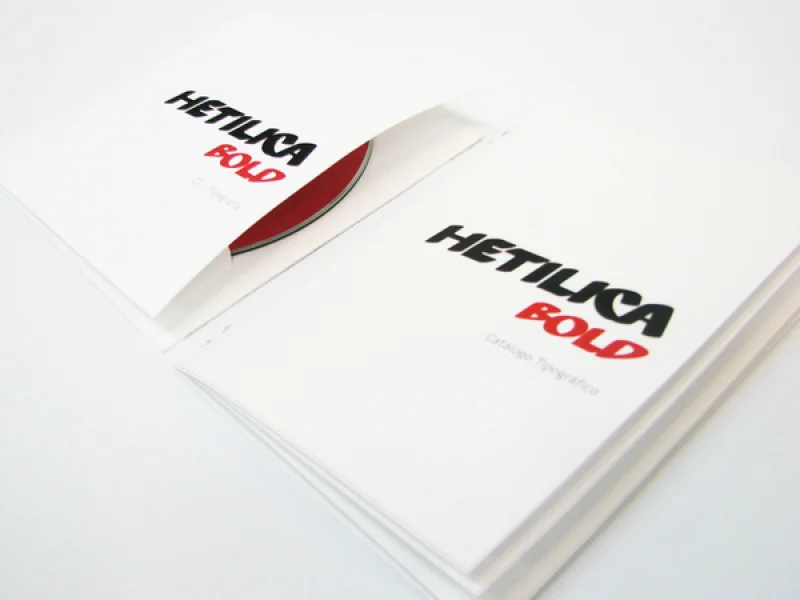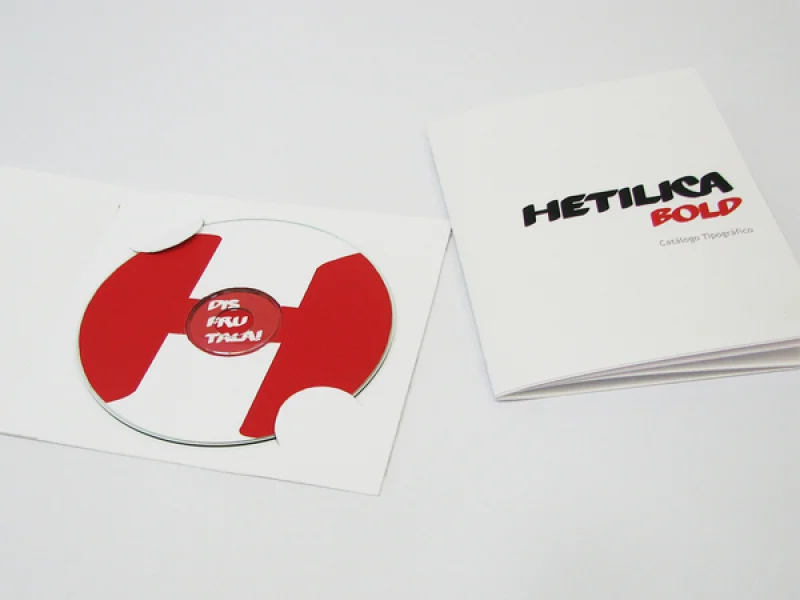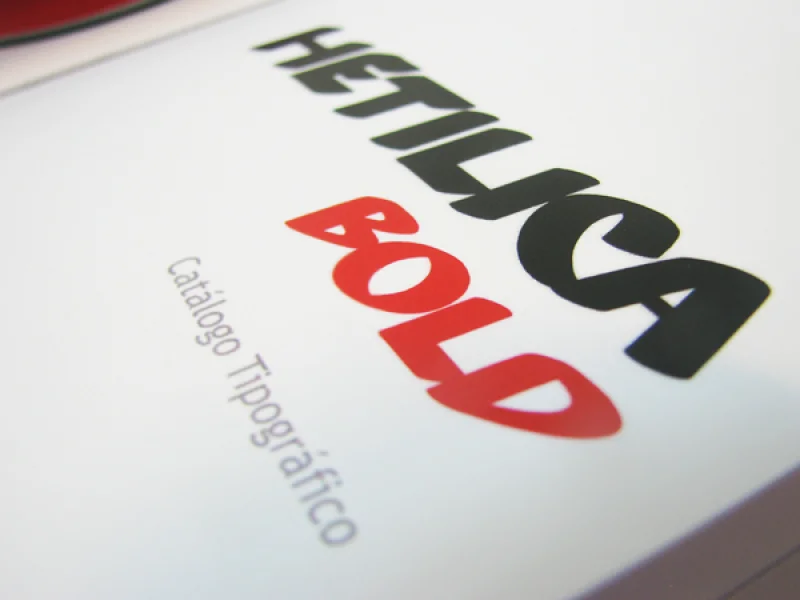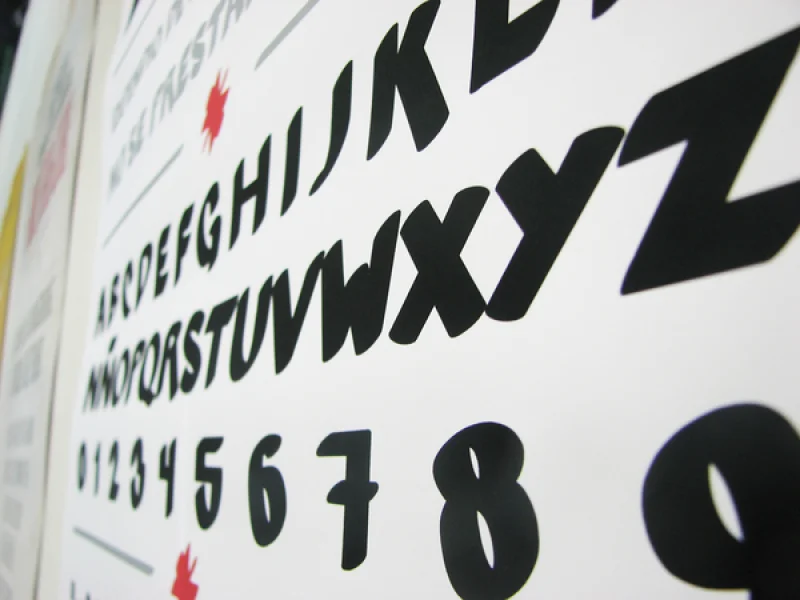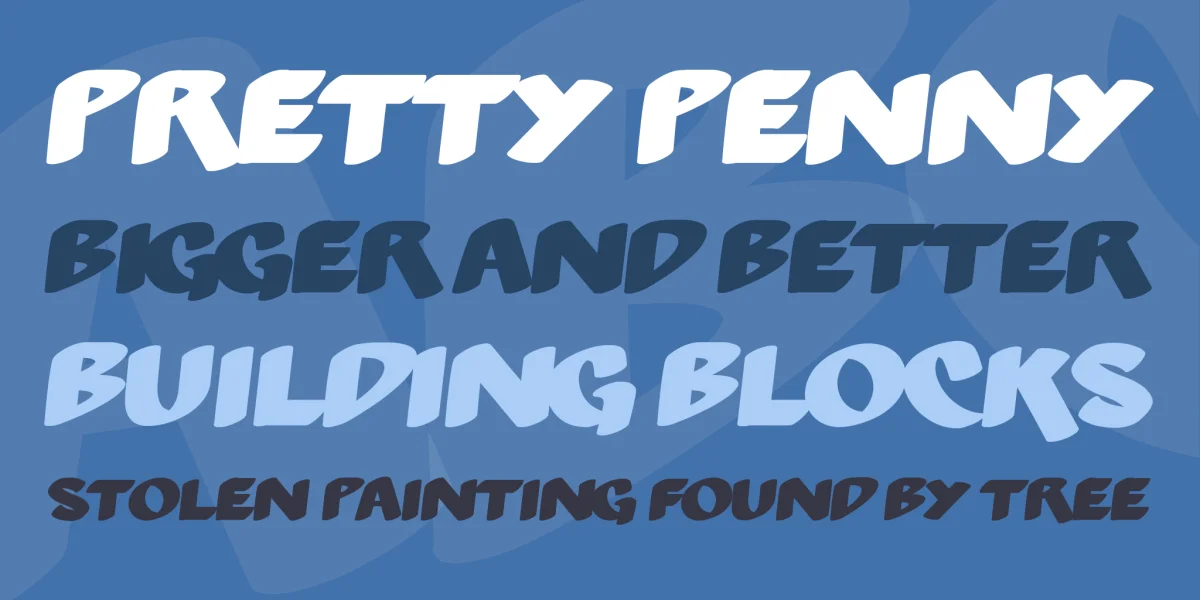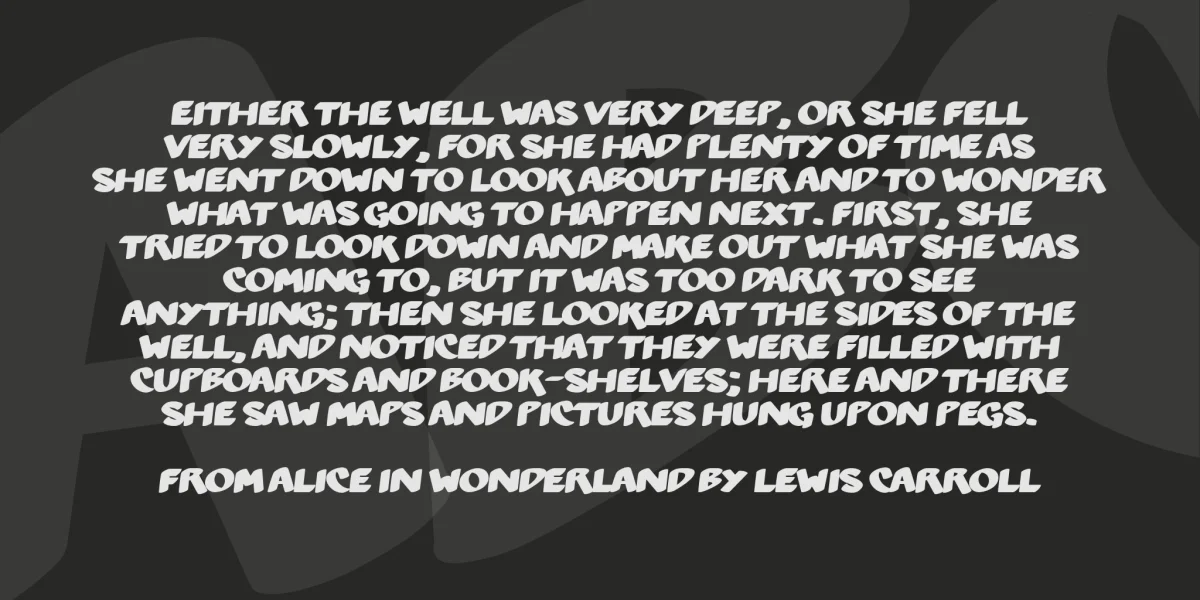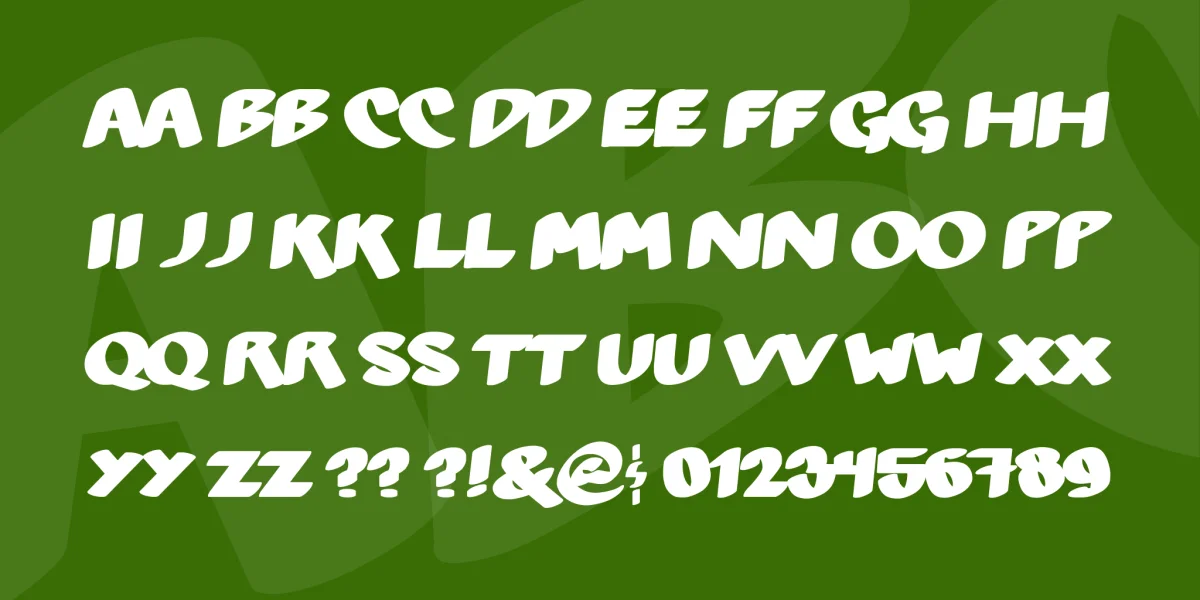
Hetilica Bold is a typeface developed as a final project for my 2009 workshop class in college.
It is based on the hand-written license signs used across some of the alcohol selling shops in the province of Cartagena, Chile; a small beach-side town of small population.
After a trip to the area, several pictures were taken to decide the fonts to develop based on just a few glyphs found.
Ulteriorly, we were asked to develop a full typography, type catalogue, specimen, website and several pieces of type-oriented memorabilia.